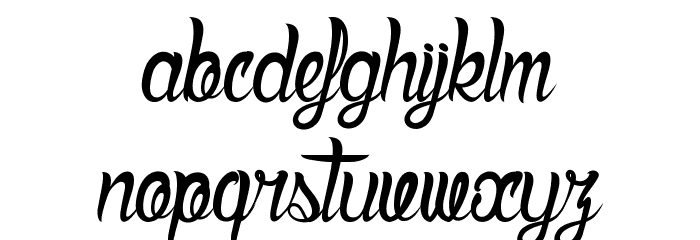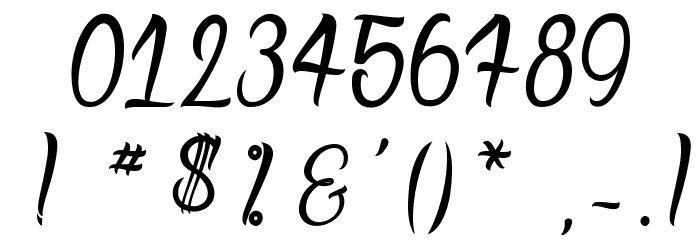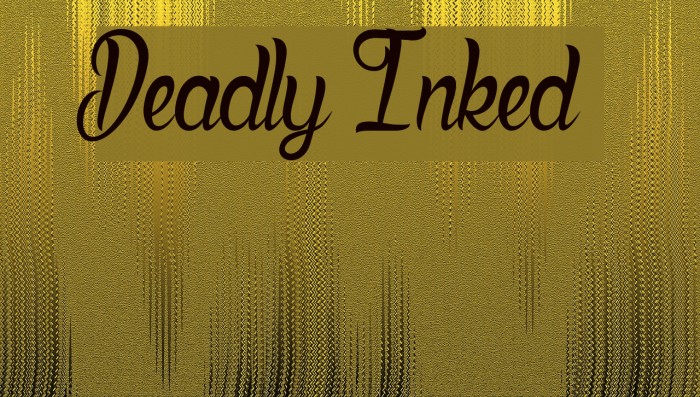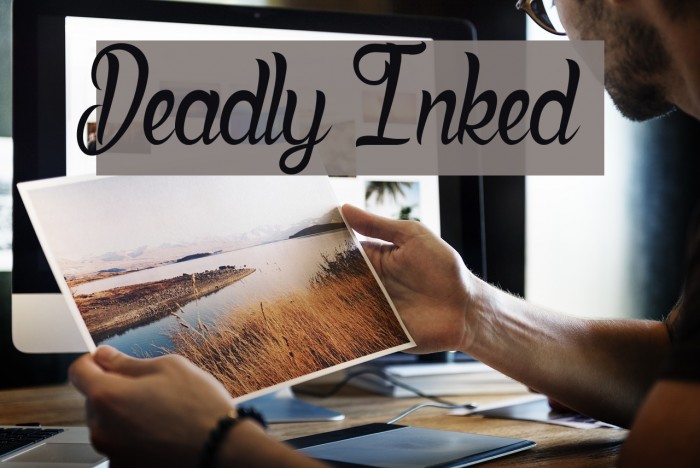
Deadly Inked Font
This font features a bold and dynamic script style with a distinct handwritten appearance. The uppercase letters are characterized by their flowing, interconnected strokes, giving them a sense of movement and elegance. The lowercase letters maintain a similar fluidity, with some letters featuring unique loops and curves that add to the overall artistic flair. The numerals are consistent with the script style, offering a cohesive look across all characters. Special characters are designed with the same attention to detail, ensuring they blend seamlessly with the rest of the font. This font's boldness and intricate design make it stand out, suitable for projects that require a touch of sophistication and creativity.
A bold, dynamic script font with a handwritten style and elegant flow.
- Proposed Projects: Ideal for branding, invitations, logos, and artistic projects requiring a sophisticated script style.
- Use Case: Logos, Invitations, Artistic projects